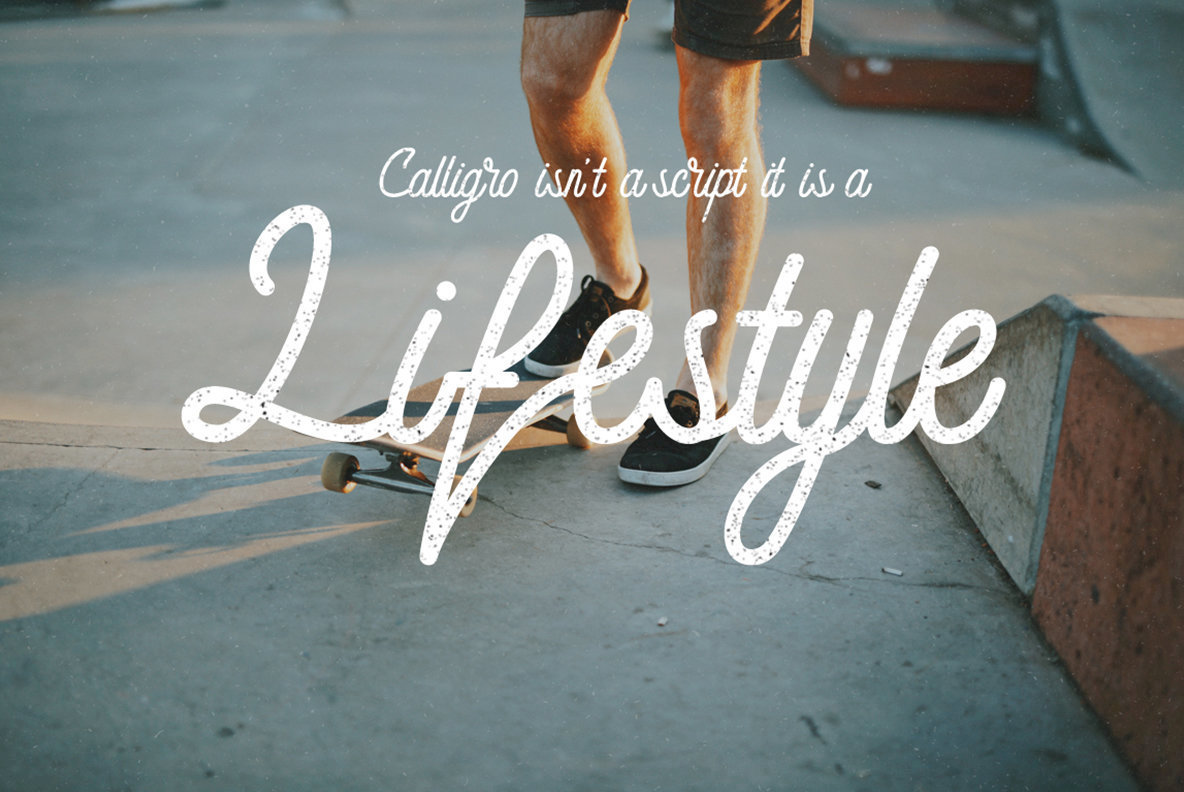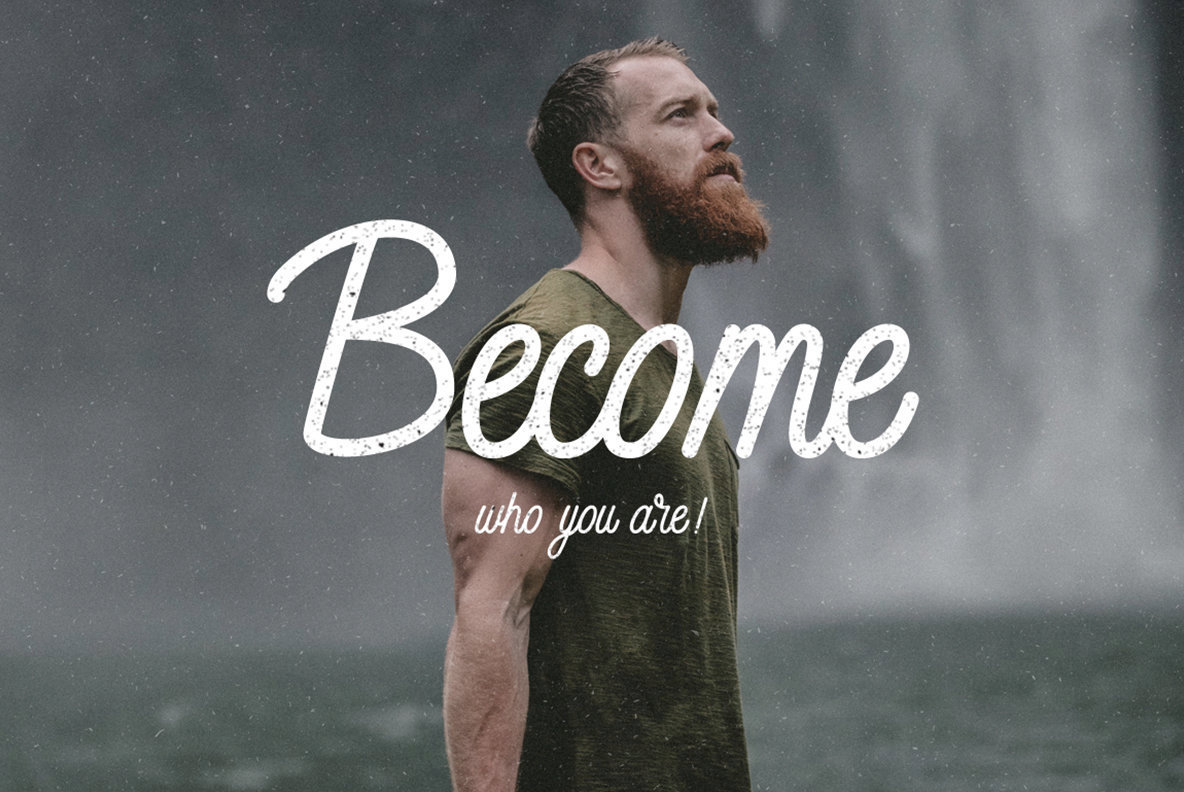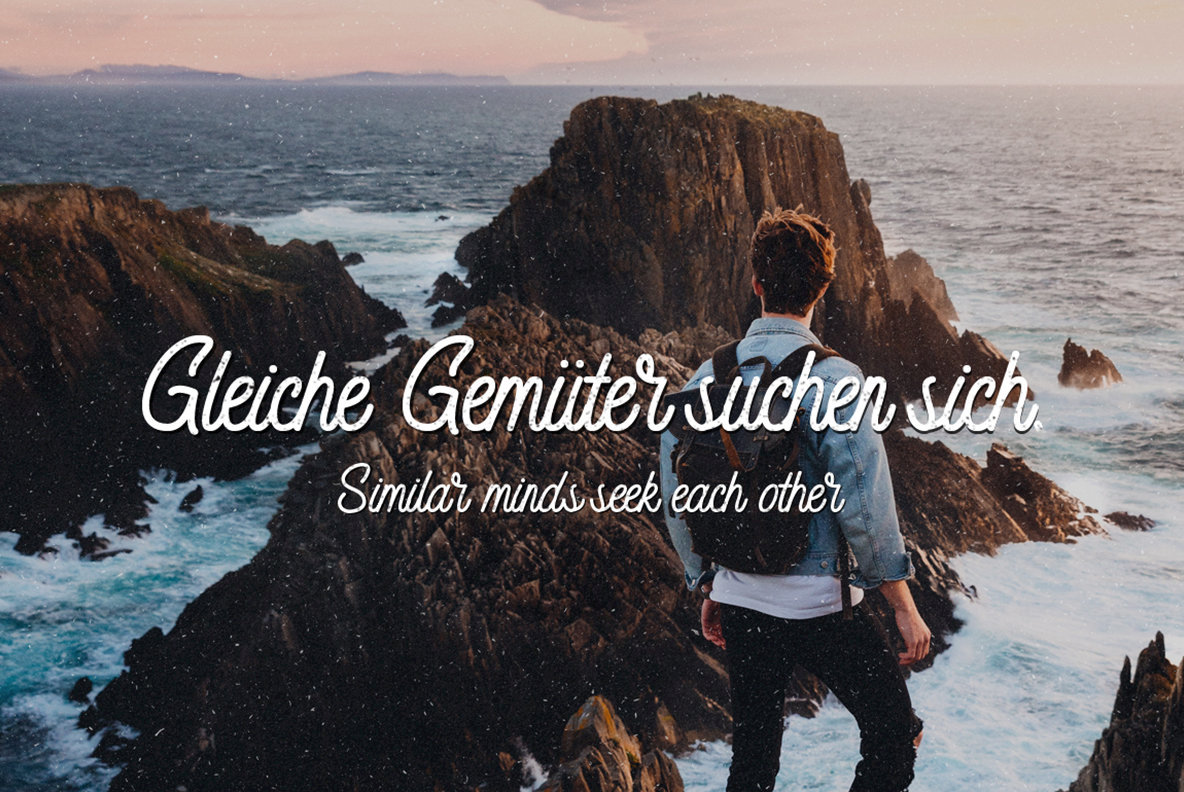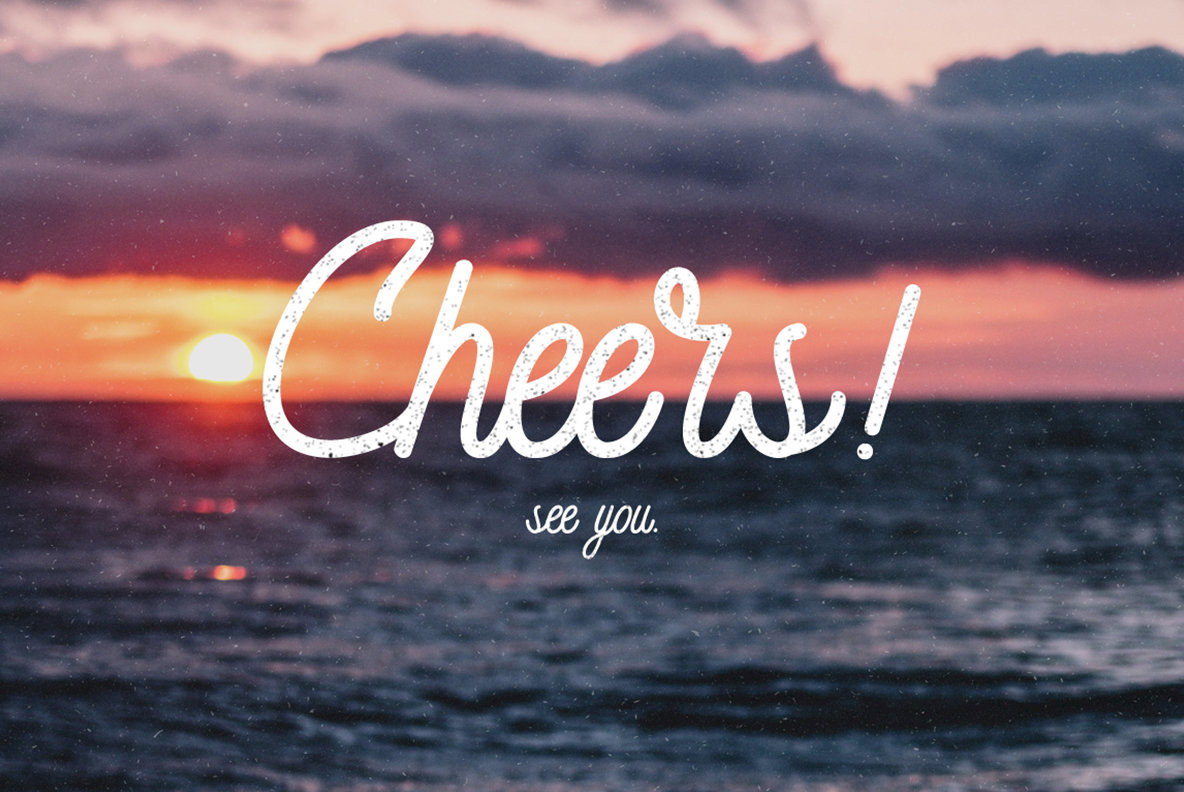
Calligro Font
Calligro
The art of handwriting is beautifully captured in Calligro Script, a font designed with craftsmanship that brings bespoke elegance to your projects. Ideal for logo design, clothing branding, posters, and invitations, each glyph is meticulously crafted to offer genuine character. Whether for an artistic poster or a stylish invite, Calligro Script ensures your design stands out with its unique hand-drawn quality. Bonus Features: Beyond its striking letters, Calligro Script pairs with a collection of grunge textures, inviting you to apply an artistic edge to your text. These textures enhance your designs with a raw, vintage appeal. Features: Elevate your creative projects with Calligro Script’s authentic handwriting style and versatile design elements.Calligro Script: Craft Authenticity in Every Stroke